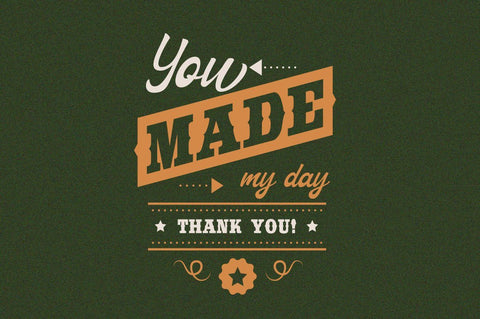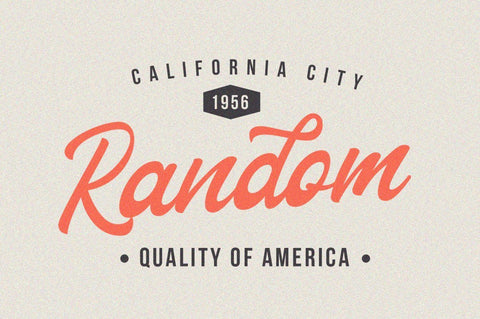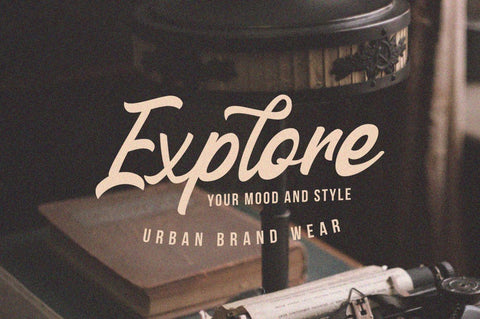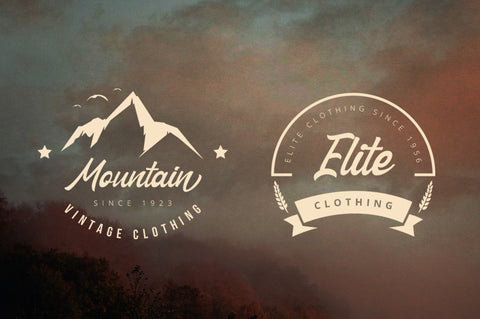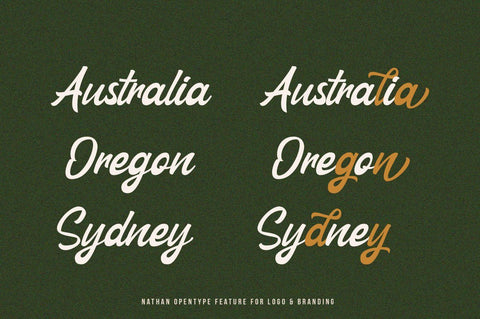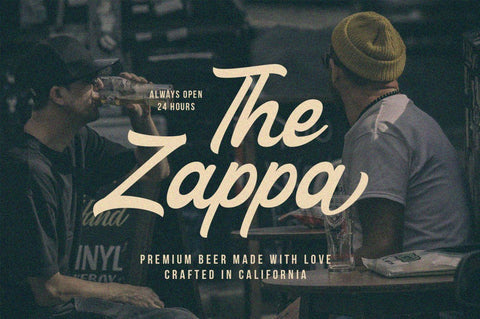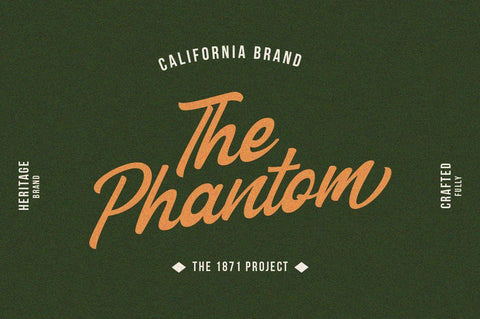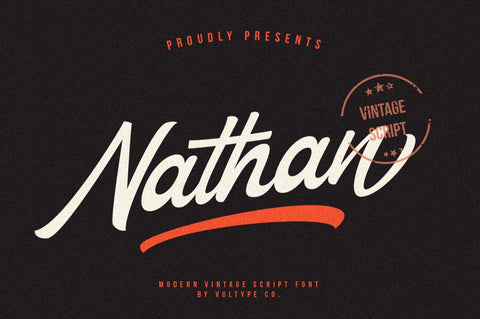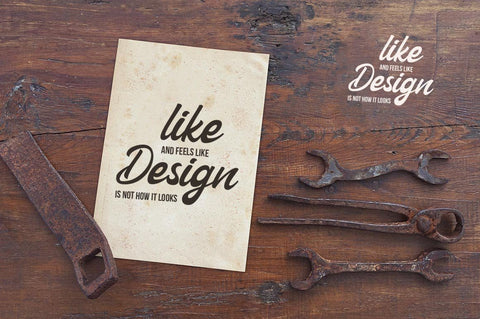
Nathan Vintage Font
Nathan Vintage Script was very inspired from modern vintage and retro style
With font duo that combines two trends (Modern Sans serif caps and Vintage Script) You'll be seeing this combination a lot more in the design world
was very inspired from modern vintage and retro style